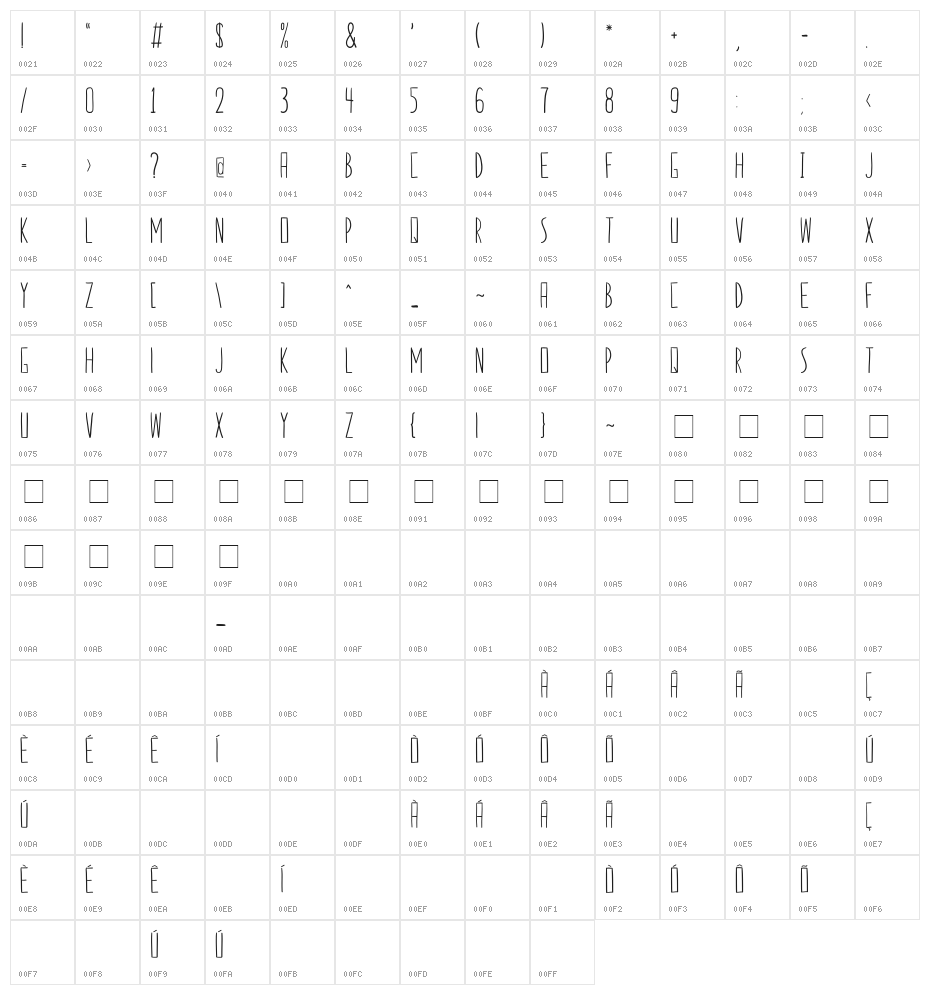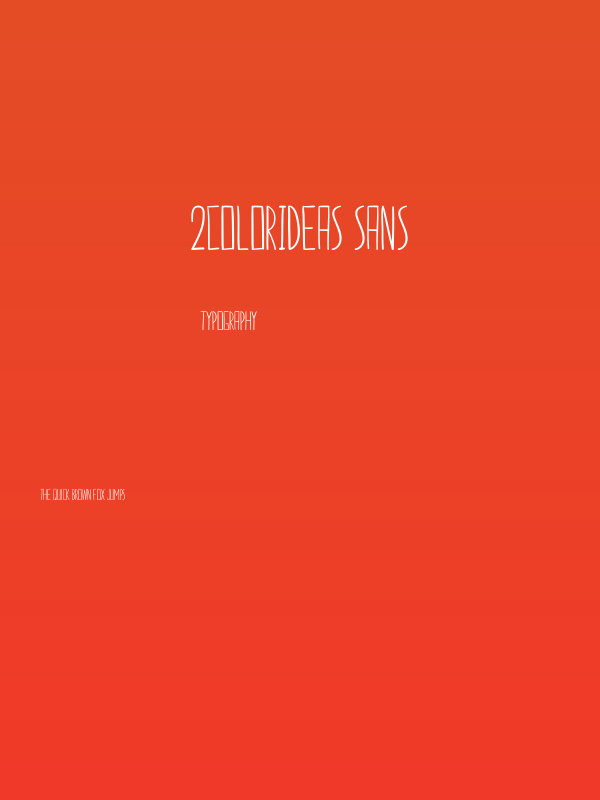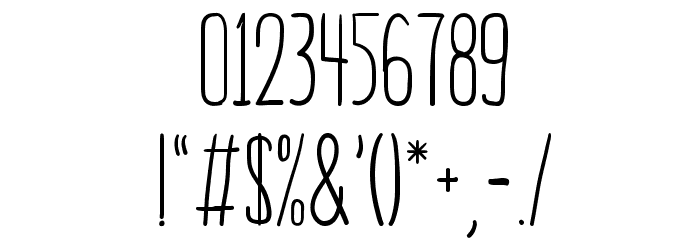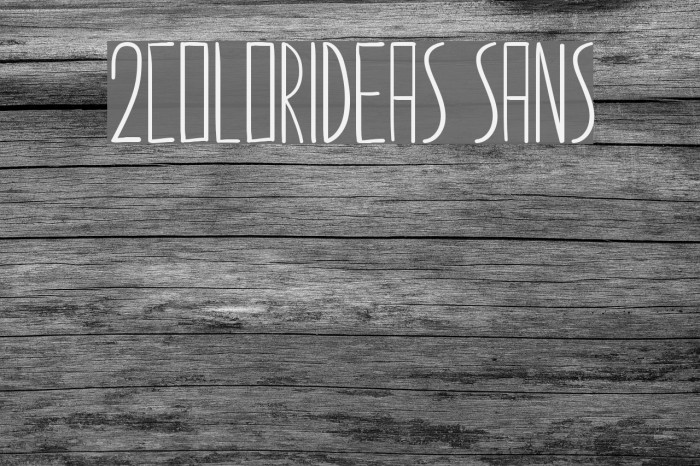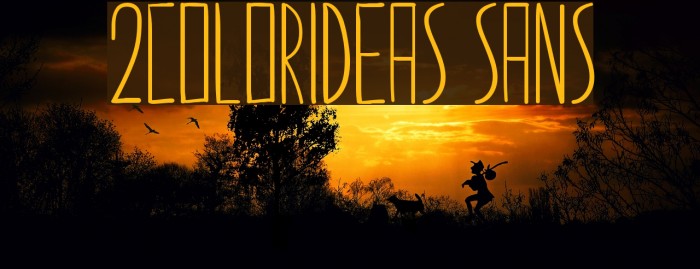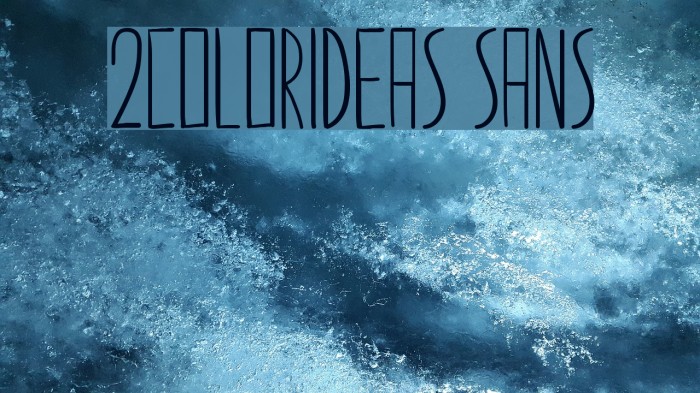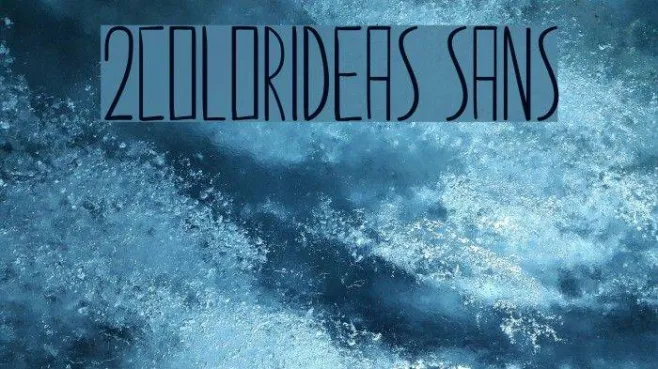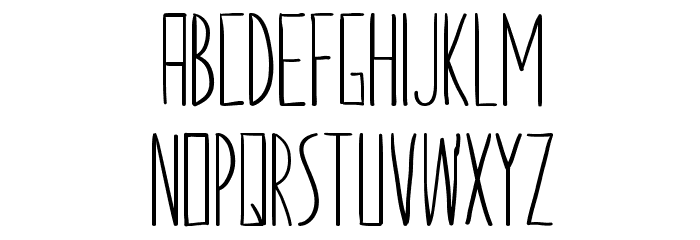
2colorideas sans Font
✎ Modern
2colorideas sans Description
This font features a tall, narrow design with a distinctively modern and minimalistic aesthetic. The characters are elongated and maintain a consistent stroke width, giving it a clean and streamlined appearance. The uppercase letters are particularly striking, with some characters like 'R' and 'Q' having unique geometric elements. The lowercase letters mirror the uppercase in style, maintaining the same height and narrowness. Numbers are similarly designed, fitting seamlessly with the overall look. Special characters are included, matching the font's sleek style. This font is ideal for projects that require a contemporary and sophisticated touch.
| Width | Condensed |
| Proposed Projects | Ideal for modern branding, editorial design, posters, and minimalist web design. |